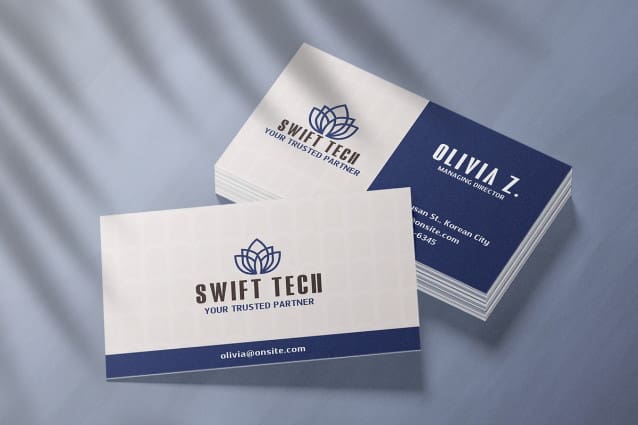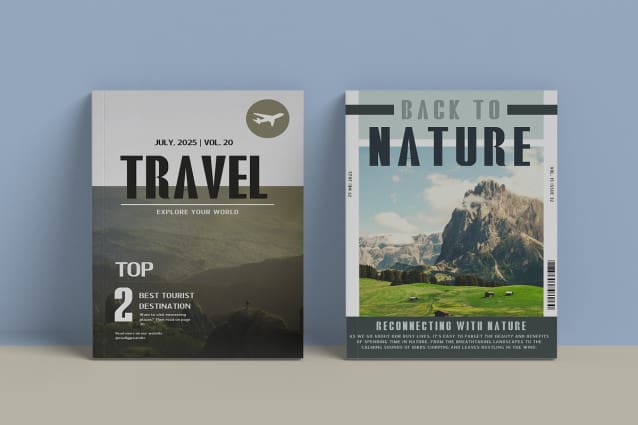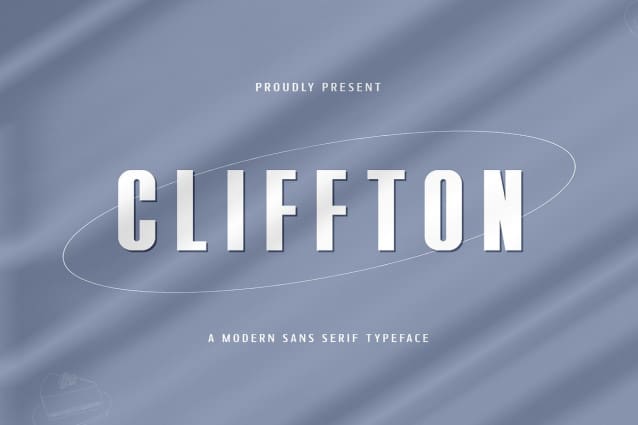
Cliffton Font
Cliffton Font, a modern sans serif typeface that combines sleek precision with modern versatility. Perfect for graphic designers, typographers, and creatives seeking to infuse their projects with a clean and contemporary aesthetic, Cliffton offers a refined and minimalist style that enhances any design.
Ideal for branding, web design, editorial layouts, logos, and packaging, Cliffton’s clean lines and balanced proportions provide a professional and sophisticated look. Each character is meticulously crafted to ensure readability and visual appeal, making your designs both stylish and impactful.
The Cliffton font includes a complete set of uppercase and lowercase letters, numbers, punctuation marks, and special characters. This comprehensive set allows for seamless integration into a wide range of design projects, from chic branding to elegant web interfaces.
Elevate your designs with Cliffton, the modern sans serif typeface that brings sleek precision and modern versatility to every project.